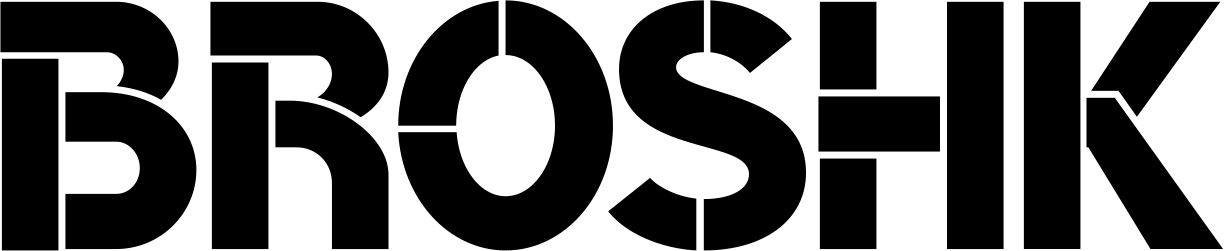
BroshK Font
If you are looking for a solution to modernize your writing, BroshK can help you out. BroshK is a geometric font and it will give a sharp, cool, and modern look to your texts or headlines.
You can use this industrial stencil font for computer book titles, theater or play flyers, futuristic movie posters, fantasy literature, and product names. Please note that this font only has capital letters.